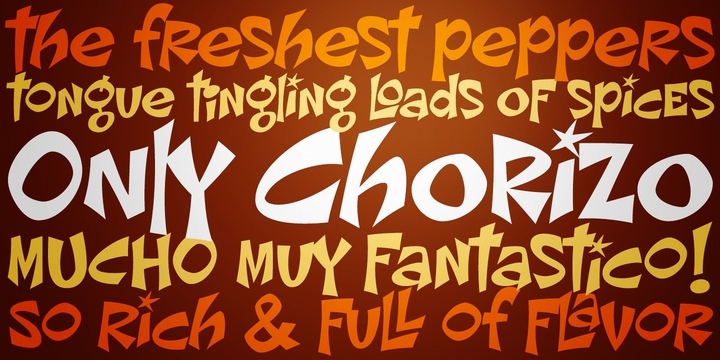
Chorizo PB Font
The Chorizo PB Font is a quirky and offbeat typeface that is perfect for projects that need a playful, retro, and slightly wild feel. Inspired by the imaginative lettering of comic creator Paul Coker, Jr., and evoking a classic Rankin/Bass aesthetic, this font is an excellent choice for a variety of creative applications. Imagine it on a groovy poster for a 70s-themed party, a vibrant logo for a comic book store, or the title of a fun, animated show. It's also fantastic for creating unique t-shirt designs, retro-inspired product packaging, and eye-catching social media graphics where its whimsical character can truly shine. The Chorizo PB Font brings a sense of joyful nostalgia and artistic individuality to any project, ensuring your designs are both memorable and full of personality.
What makes this font so exciting is its incredibly unique and expressive letterforms. It's a font that "screams to be played with," featuring an extended language set and loads of characters in stylistic alternates and discretionary ligatures. These features allow you to randomize double letters and create interesting combinations for sets like "La," "Li," and "LL," giving your text a truly custom, hand-drawn look. This isn't just a font; it’s a design tool that allows for a high degree of creative freedom and fun. The offbeat nature and distinctive style of the Chorizo PB Font make it a powerful tool for any designer looking to create something truly special and engaging, capturing the hearts of both children and adults alike.
The Chorizo PB Font family is designed with a focus on style and impact. It comes in a single, well-balanced weight that is perfect for headlines and short, impactful phrases. The font includes a full set of uppercase and lowercase letters, numbers, and a variety of punctuation marks, along with its extensive set of OpenType features. This comprehensive set of characters gives you everything you need to create a cohesive and professional look. The richness of the Chorizo PB Font family makes it easy to maintain a consistent style across all your design materials, ensuring your message is always clear and beautifully presented.